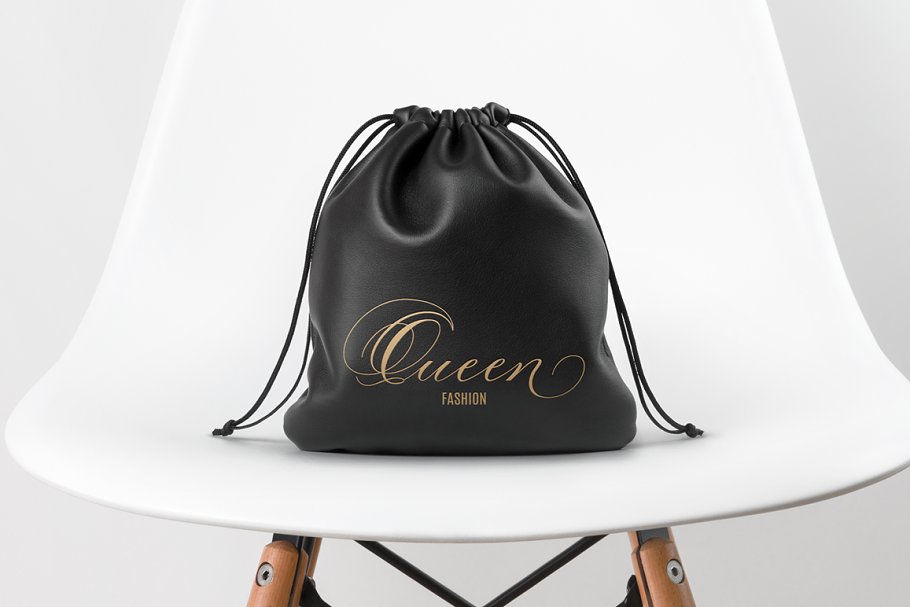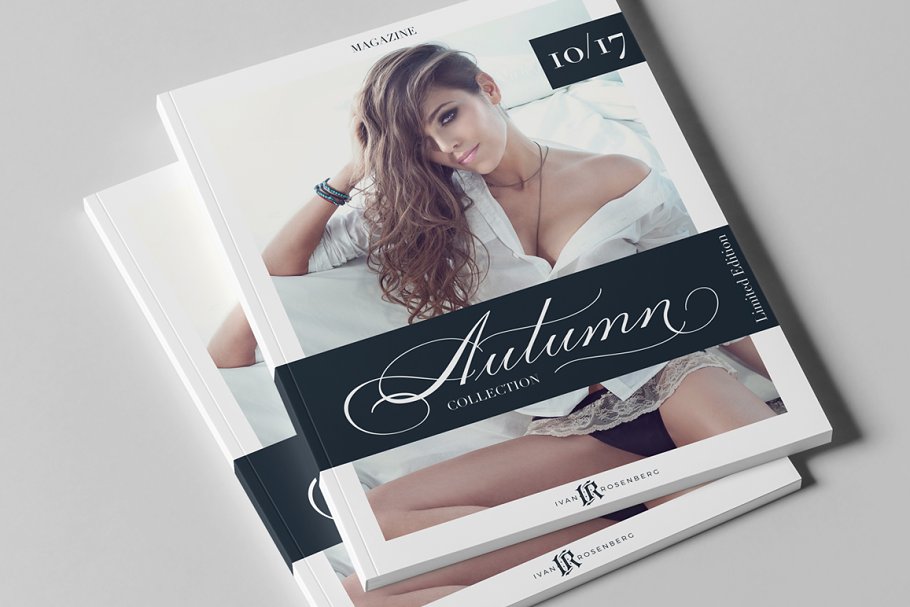
About the Diplomatic Font
SAVE OVER 95% ! This font is also included in The Modern Fonts Bundle https://crmrkt, com/41JrVrDiplomatic Font is formal script font with multilingual support, Is ideal for wedding invitations, magazines, social media, restaurant menus, greeting cards, birthday invitations, headers and many more, This brush font comes with a complete set of lowercase and uppercase characters, a large range of punctuation ligatures, numerals and and multilingual support
Download folder includesDiplomatic Font is a set of 636 glyphs, Upper and Lowercase characters with ligatures, numerals, lot of punctuation glyphs and up to 14 alternates for each character, 8-14 alternates for lowercase characters and 1-3 alternates for uppercase characters